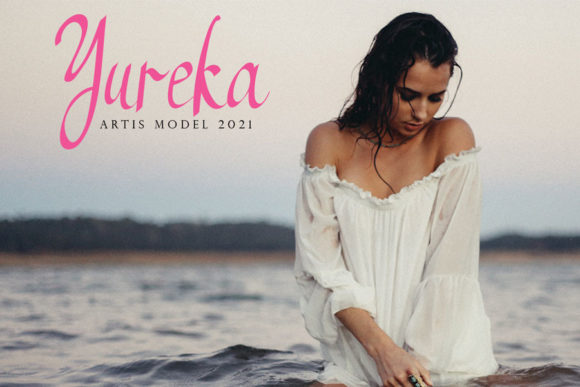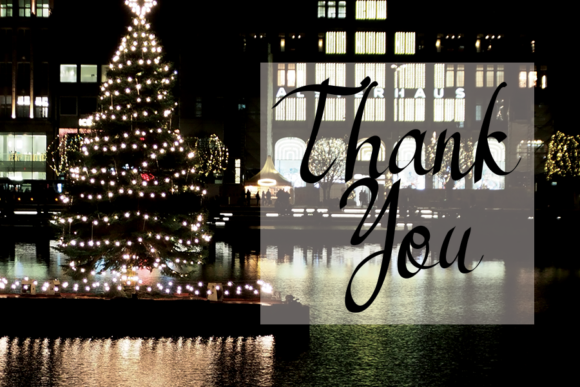
Introducing Christmas Light Font: Elevate Your Designs with Elegance
Are you looking for a font that embodies the spirit of the holiday season while bringing a touch of sophistication to your designs? Look no further than the Christmas Light Font, an elegant script font that combines contemporary flair with timeless classic calligraphy. In this article, we’ll delve into the features and benefits of this beautiful font, and explore how it can elevate your designs for the holiday season and beyond.
The Inspiration Behind Christmas Light Font
Christmas Light Font is inspired by the traditional calligraphy of the past, yet crafted with a modern twist to make it relevant for today’s designs. The font’s creator aimed to capture the essence of classic elegance while infusing it with a fresh and contemporary atmosphere. The result is a font that exudes sophistication and refinement, perfect for designers and crafters seeking to add a touch of luxury to their work.
Key Features of Christmas Light Font
- Elegant Script Style: Christmas Light Font boasts a beautiful, flowing script style that is reminiscent of traditional calligraphy.
- Contemporary Atmosphere: Despite its classic inspiration, the font has a distinctly modern feel that makes it suitable for a wide range of design applications.
- Impeccable Form: The font’s design is characterized by impeccable form, ensuring that it remains legible and visually appealing even at smaller sizes.
- Refreshing Look: Christmas Light Font is perfect for designers and crafters looking to add a refreshing and beautiful touch to their designs.
Use Cases for Christmas Light Font
Christmas Light Font is incredibly versatile and can be used in a variety of design applications, including:
- Holiday Cards and Invitations: Add a touch of elegance to your holiday cards and invitations with this beautiful script font.
- Branding and Packaging: Use Christmas Light Font to create luxurious branding and packaging designs that stand out from the crowd.
- Digital and Print Media: The font is suitable for use in digital and print media, including social media graphics, flyers, and brochures.
- Crafting and DIY Projects: Christmas Light Font is also perfect for crafters and DIY enthusiasts looking to add a personal touch to their holiday decorations and gifts.
Tips for Using Christmas Light Font
To get the most out of Christmas Light Font, consider the following tips:
- Pair with Complementary Fonts: Pair Christmas Light Font with complementary fonts to create visual interest and hierarchy in your designs.
- Experiment with Colors: The font looks stunning in a range of colors, so don’t be afraid to experiment and find the perfect hue for your design.
- Use for Headlines and Titles: Christmas Light Font is perfect for headlines and titles, where its elegant script style can really shine.
Christmas Light Font is a beautiful and elegant script font that is sure to elevate your designs for the holiday season and beyond. With its timeless classic calligraphy inspiration and contemporary atmosphere, this font is perfect for designers and crafters seeking to add a touch of sophistication and luxury to their work. Whether you’re creating holiday cards and invitations, branding and packaging designs, or crafting and DIY projects, Christmas Light Font is an excellent choice.